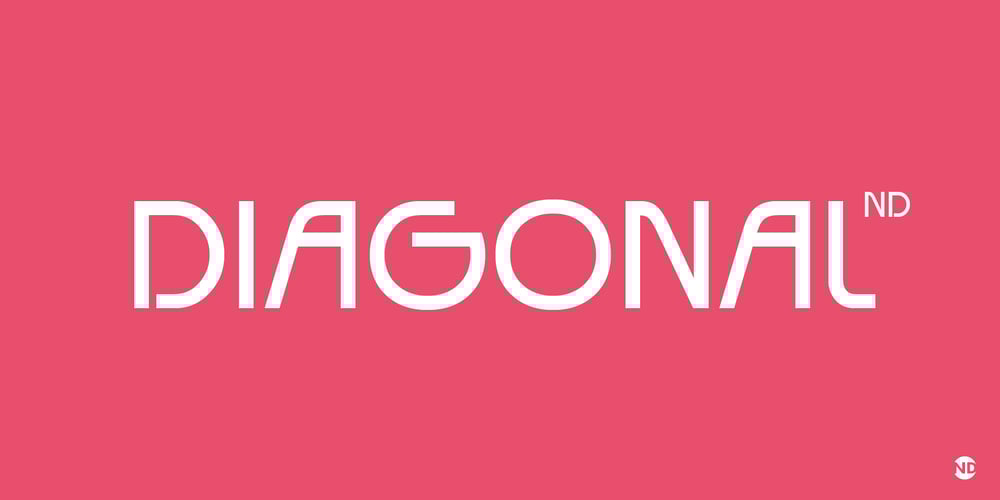
Diagonal ND Font Family was designed by Antoni Morillas and published by Neufville Digital. Diagonal ND contains 1 styles and family package options. Inspired by Barcelona’s Diagonal street, Antoni Morillas designed Diagonal ND in 1970. A sans that alternates straight and inclined lines, with a strong rhythm and its own personality. Its range of possible usages are very varied: signage, headlines, packaging, etc.Diagonal is a Trademark of BauerTypes SL